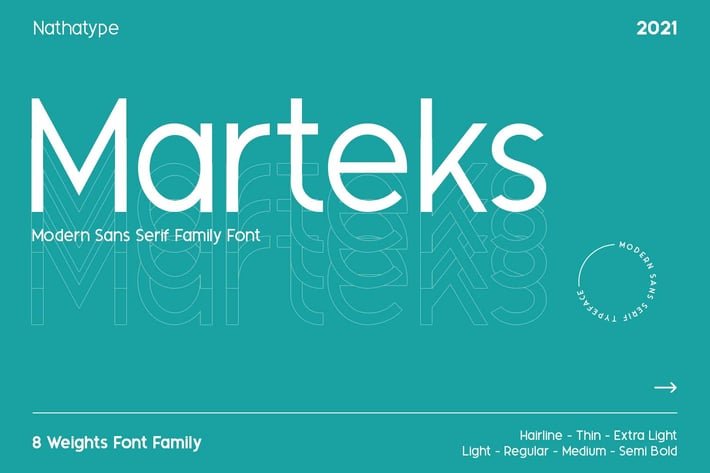
Marteks-Sans Serif Font Family
Ready to make your branding spark? If you need to create a big, bold logo for your business, work on a poster for an event, or whatever your project may be-then this is the perfect font for you.
Marteks-A Sans Serif Font Family
If we can give you many options then why not? Marteks is a package that will makes you super excited. With this family you will get many options to maximize your designs with stylish fonts. This font is more than just another sans serif font. It encapsulates the essence of luxury and modernity. Lose yourself in the romance of a crisp Fall morning, or soaking up the last drops of the sun in a golden harvest field. Perfect for headings, logos, business cards, printed quotes, wedding invitations, cards, packaging, and your website or social media branding.
Marteks-A Sans Serif Font Family
If we can give you many options then why not? Marteks is a package that will makes you super excited. With this family you will get many options to maximize your designs with stylish fonts. This font is more than just another sans serif font. It encapsulates the essence of luxury and modernity. Lose yourself in the romance of a crisp Fall morning, or soaking up the last drops of the sun in a golden harvest field. Perfect for headings, logos, business cards, printed quotes, wedding invitations, cards, packaging, and your website or social media branding.